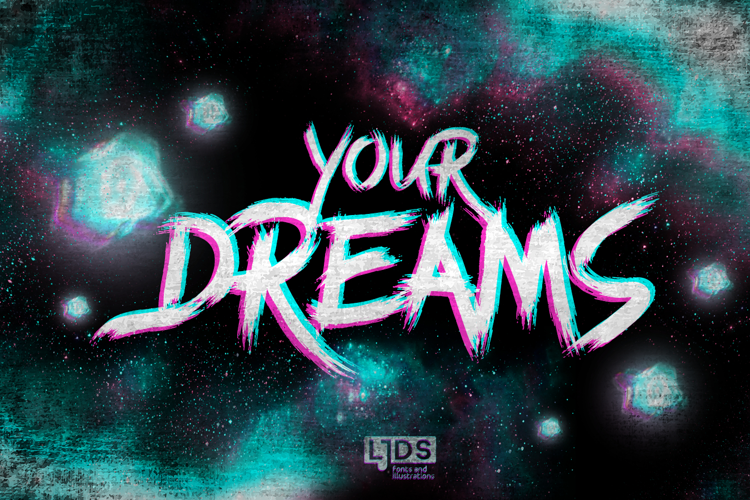
Your Dreams
Your Dreams font; Chasing my dreams (a bit lucid) I have been given to create a font that identifies them, it is about some brushstrokes of what seems to imitate my calligraphy on a canvas with a brush, a cute art that may work for you and love.
Your Dreams
By LJ Design Studios